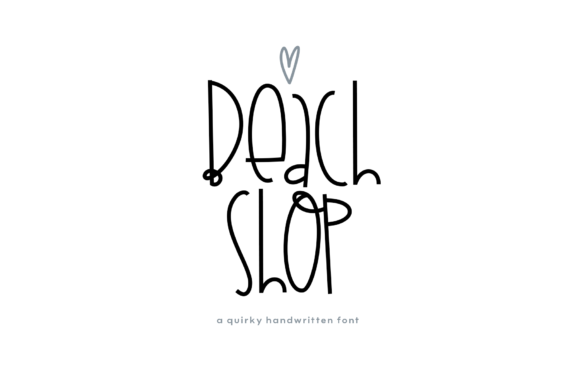
Dive into the world of sun-kissed sands and salty breezes with our delightful creation, Beach Shop Font! Step into a world of endless summer and bring the beachy vibes to your projects.
Picture this: a display font that captures the essence of carefree days spent by the ocean. Beach Shop Font, with its whimsical handwritten style, will add a touch of coastal charm to your designs, making them as refreshing as a dip in turquoise waters.
This font is not just a collection of characters; it's a gateway to transforming your projects into enchanting escapes. Design logos that evoke the tranquility of a sunrise over the ocean. Create branding that transports customers to a world of seaside serenity. Craft social media posts that capture the wanderlust of beach lovers.
Let your imagination take a vacation with Beach Shop Font. It's perfect for crafting invitations that invite guests to a seaside celebration, creating T-shirt designs that capture the laid-back beach lifestyle, or designing posters that evoke the thrill of surfing waves.
With Beach Shop Font by KA Designs, you'll have a font that's as versatile as the ocean itself. Whether you're creating digital designs or hand-lettering masterpieces, this font will add a splash of coastal magic to your creations.
Don't let your projects be ordinary. Dive into the realm of creativity with Beach Shop Font. Embrace its playful spirit and let your designs make a statement as unique as a seashell's whisper.